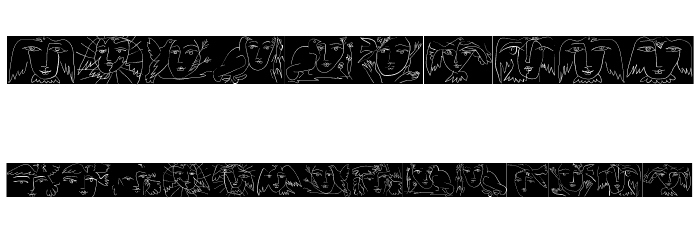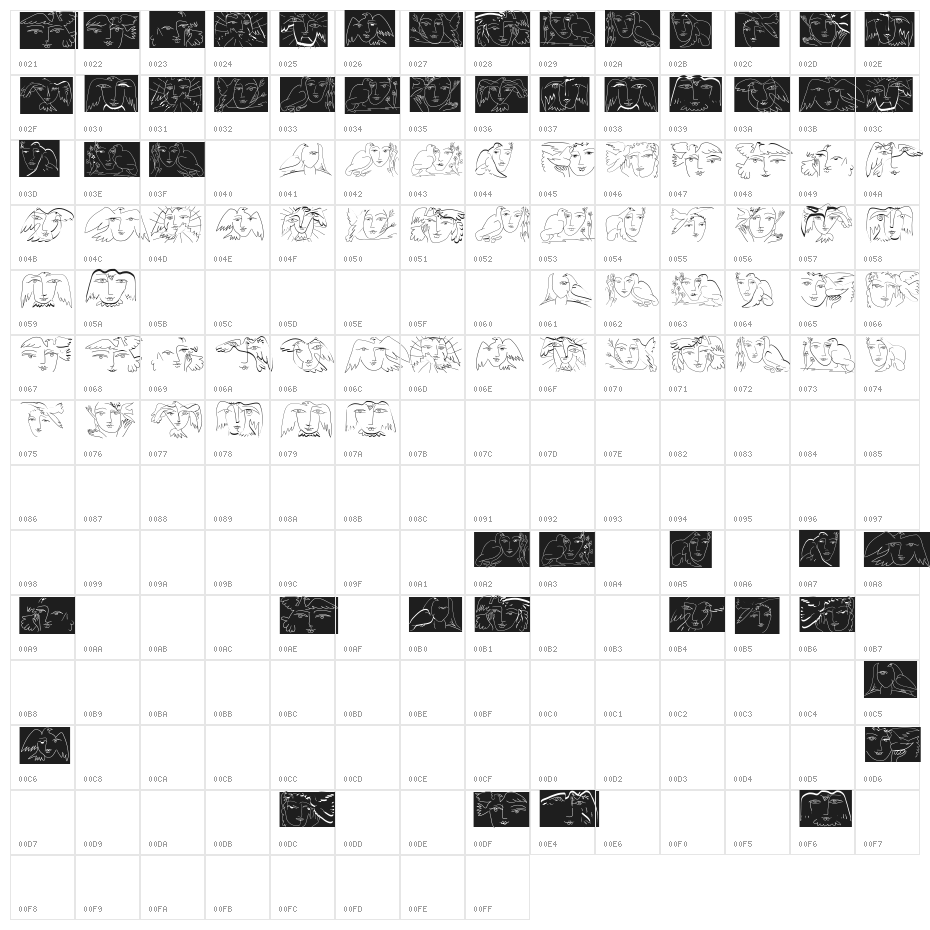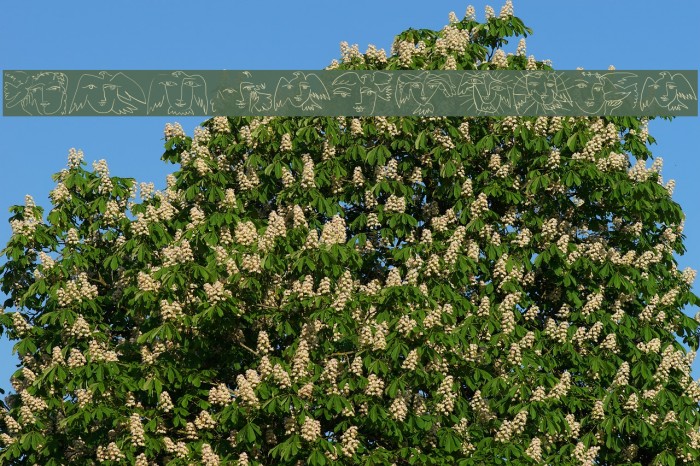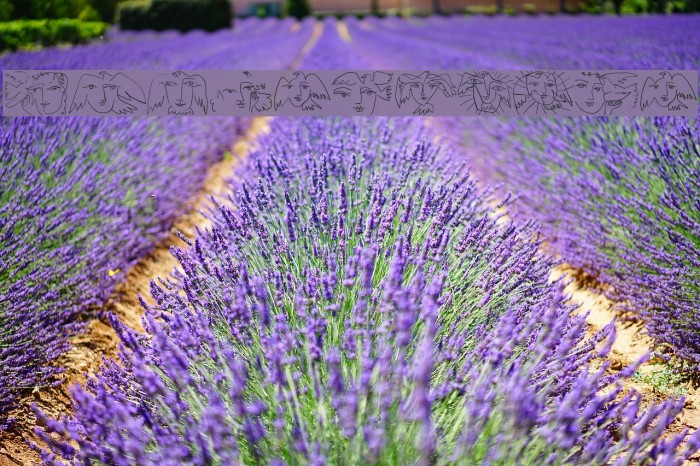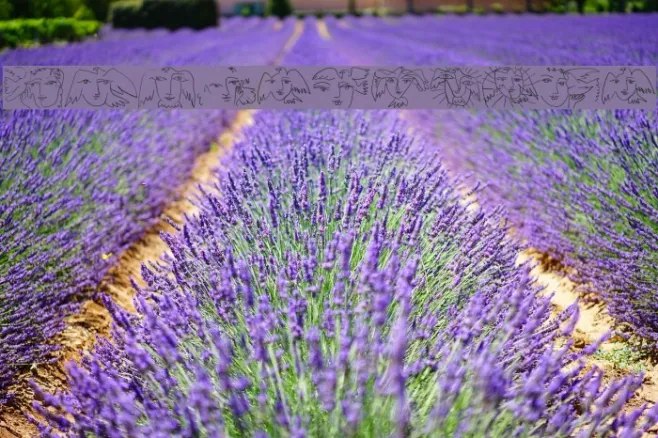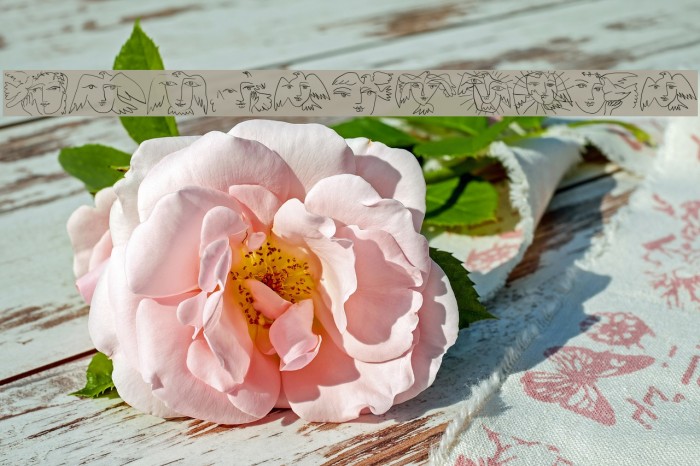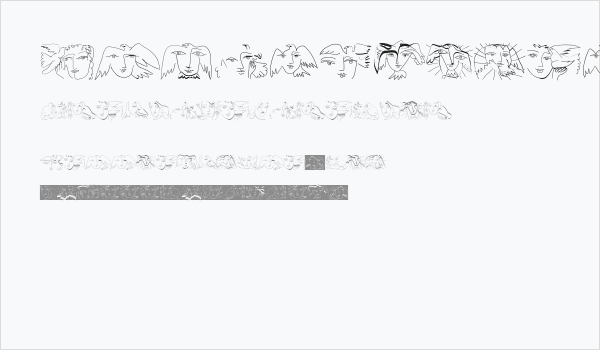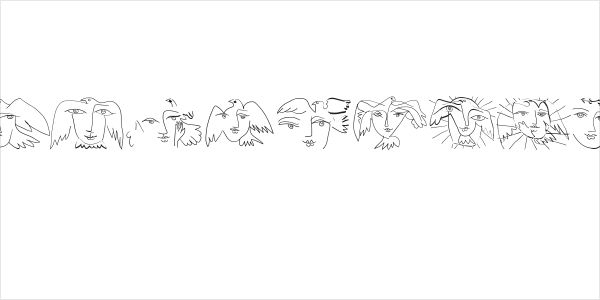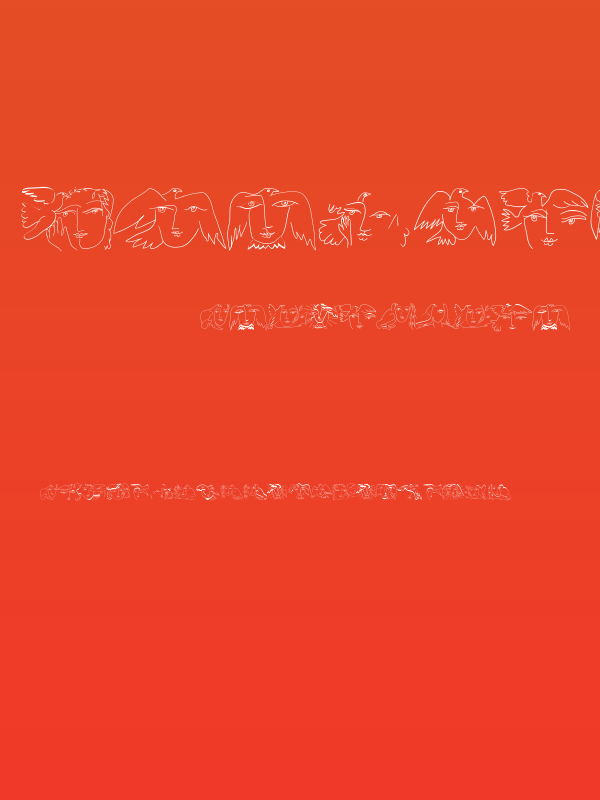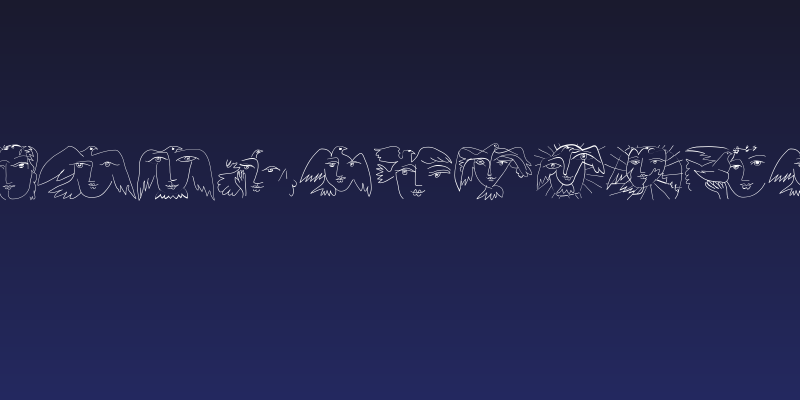
FlyingWomen Font
FlyingWomen Description
This unique and artistic font features a series of abstract, line-drawn figures that resemble flying women. Each character is intricately designed with flowing lines and imaginative shapes, creating a whimsical and surreal appearance. The font is highly decorative, with each letter forming a distinct and expressive image. The characters are interconnected with fluid lines, giving a sense of movement and dynamism. This font is not suitable for traditional text but serves as a creative and artistic expression, perfect for projects that require a distinctive and eye-catching design element.
| Overall Style | Artistic, Surreal |
| Use Case | Logos, Posters, Artistic Displays |
| Proposed Projects | Ideal for artistic projects, creative posters, unique branding, and decorative purposes. |